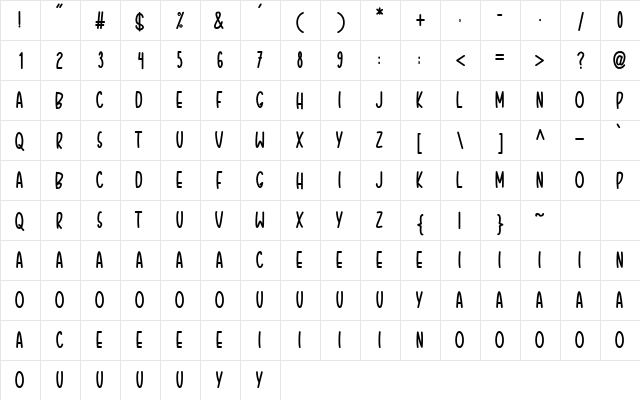
Christmas Farmhouse Regular
| Foundry | Farz Studio |
| Designer | Farz Studio |
Design Context for Christmas Farmhouse Typeface
Christmas Farmhouse is a composed and adaptable typeface that performs quietly and consistently across a wide range of design contexts.